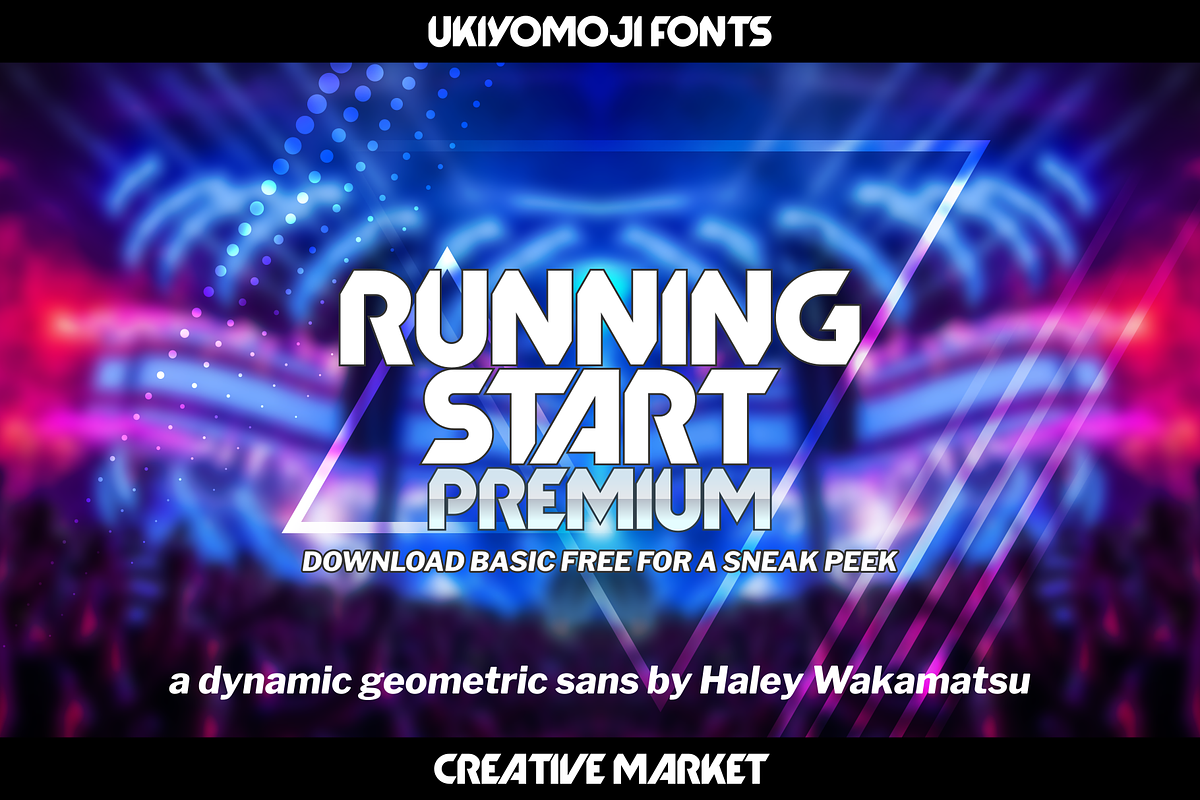
Please note that you must purchase this font for commercial use. You can download Running Start: Dynamic Geo Sans for free, strictly for personal testing purposes only. Running Start is a modern, dynamic geometric sans-serif font that combines clean lines and sharp angles with a bold presence. With its balanced proportions and strong, contemporary look, Running Start: Dynamic Geo Sans Font Free Download is perfect for tech branding, website design, editorial layouts, marketing materials, and logo creation.
This versatile font is perfect for any design project that needs to feel modern, innovative, and impactful. It includes uppercase and lowercase letters, numerals, punctuation, and multilingual support, offering global flexibility.
Whether you're building a futuristic brand, designing a sleek interface, or creating bold visuals, Running Start adds precision and modernity to your typography.